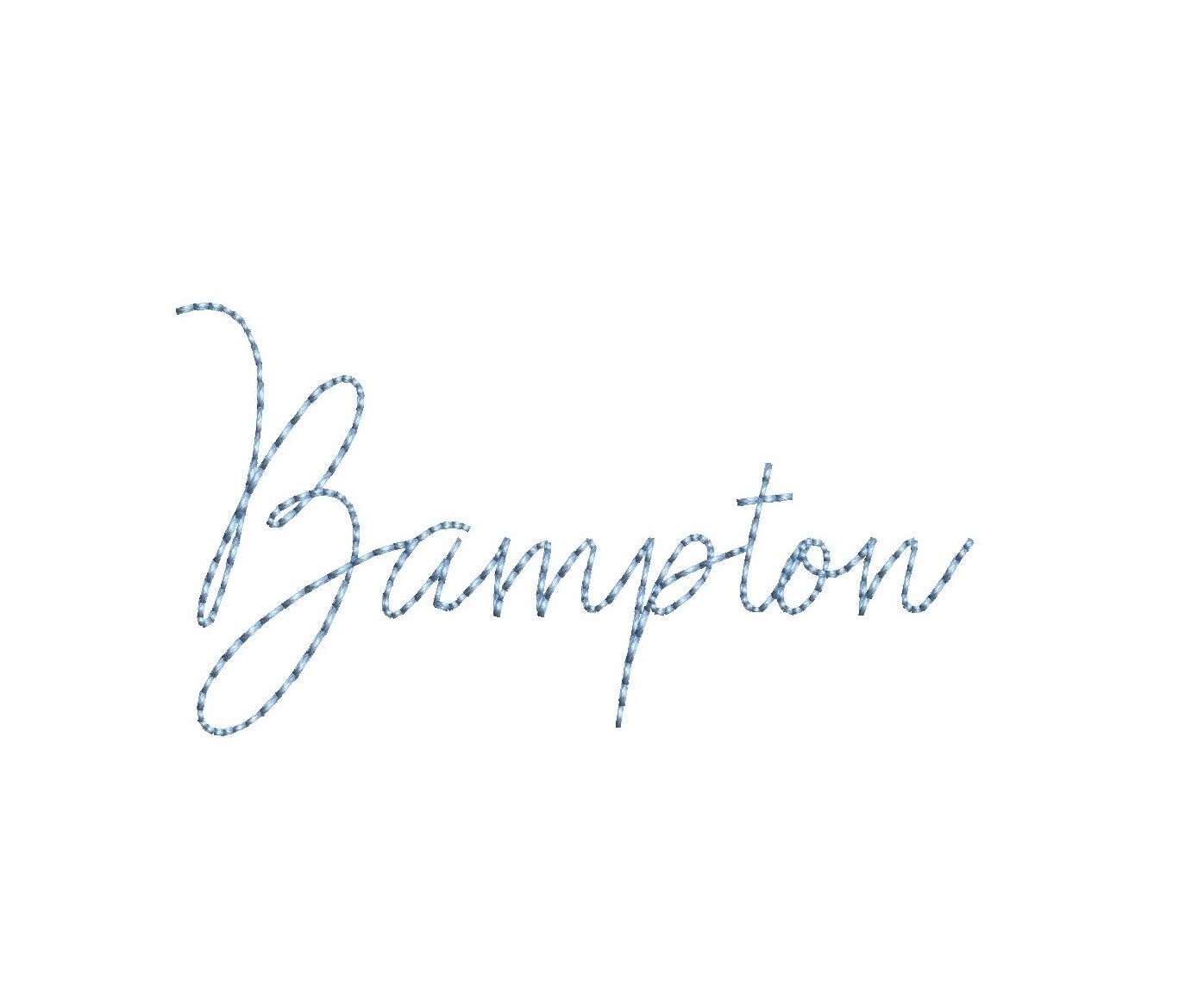
Elevate your embroidery endeavors with the Bampton Bean Stitch ESA font, tailored for compatibility with Wilcom Studio e4.5.6 and Hatch 3 versions and beyond. Seamlessly merging classic finesse and modern embroidery technology, this font lends a distinctive charm to your designs. Its intricate bean stitch technique imparts depth and allure to your creations, captivating the eye. Unleash your creative potential as Bampton Bean Stitch ESA font harmonizes with Wilcom Studio e4.5.6 and Hatch 3, opening doors to limitless innovation. Elevate your craft today with this fusion of tradition and innovation, available for a transformative embroidery experience.